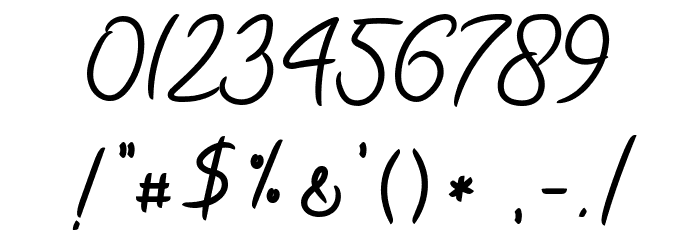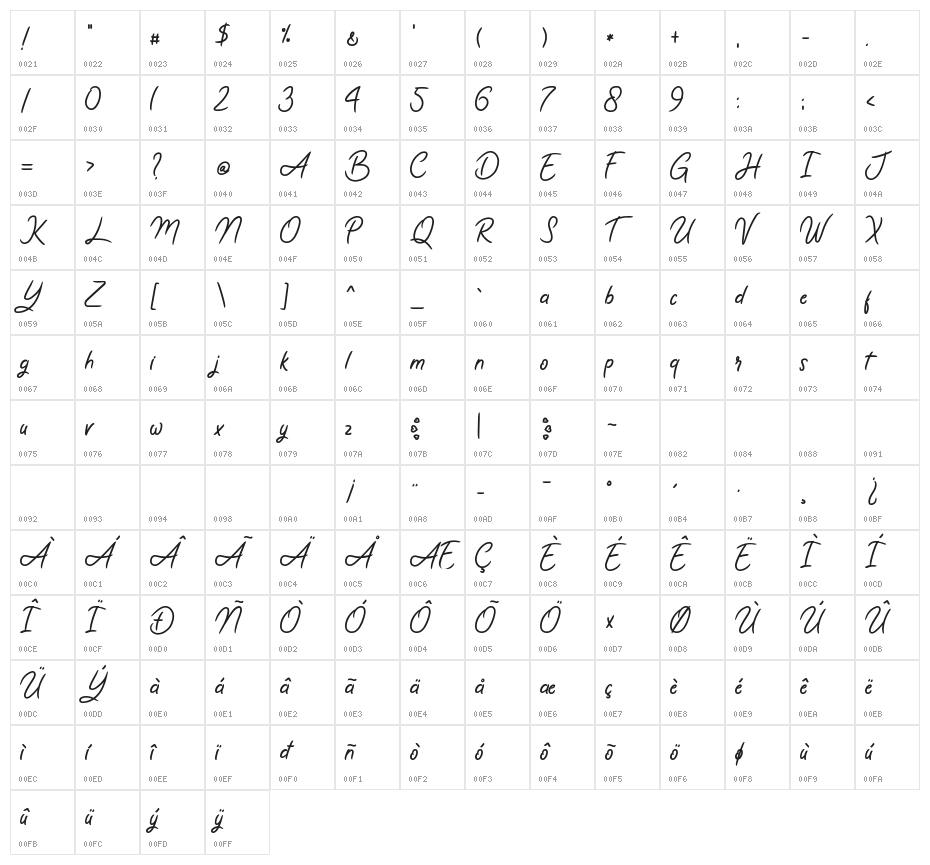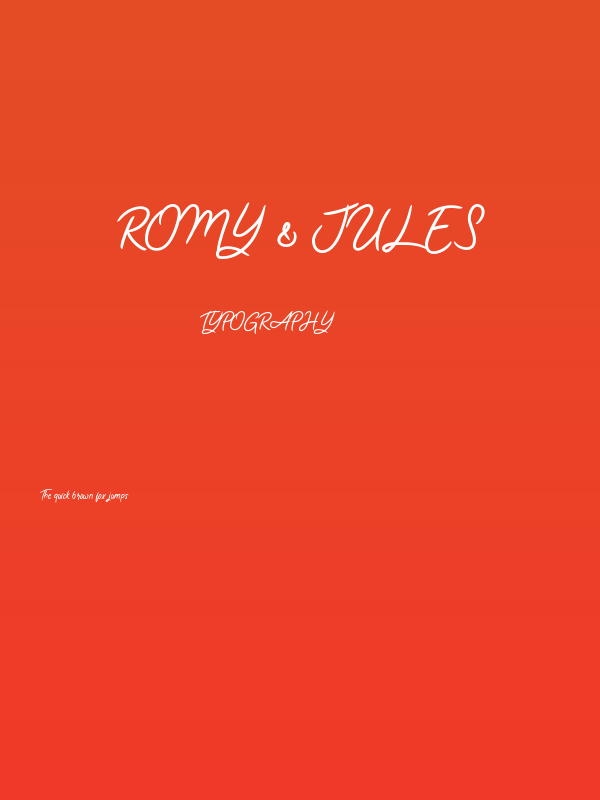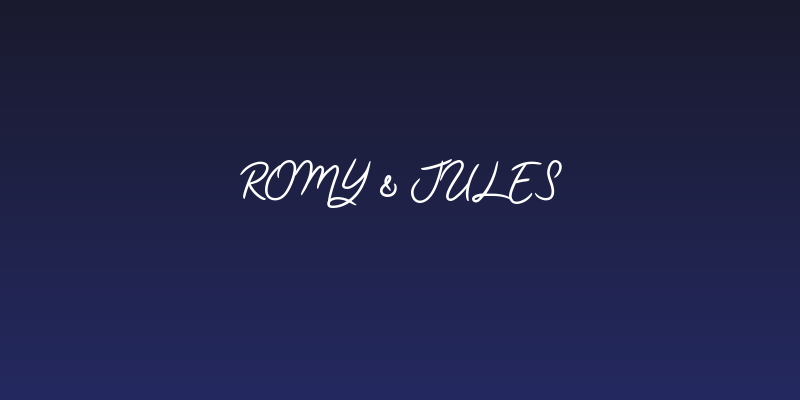
Romy & Jules Font
Romy & Jules Description
This font exudes a lively and dynamic energy, characterized by its flowing, cursive style. The letters are elegantly connected, giving a sense of continuity and fluidity. The uppercase letters are bold and slightly slanted, adding a touch of sophistication and flair. The lowercase letters maintain the same cursive style, with a playful and approachable feel. The numbers are consistent with the overall design, featuring smooth curves and a balanced appearance. Special characters are thoughtfully integrated, maintaining the font's cohesive look. This font is perfect for projects that require a personal touch, such as invitations, greeting cards, or branding materials that aim to convey elegance and creativity.
| Proposed Projects | Ideal for invitations, greeting cards, branding, and creative projects requiring a personal touch. |